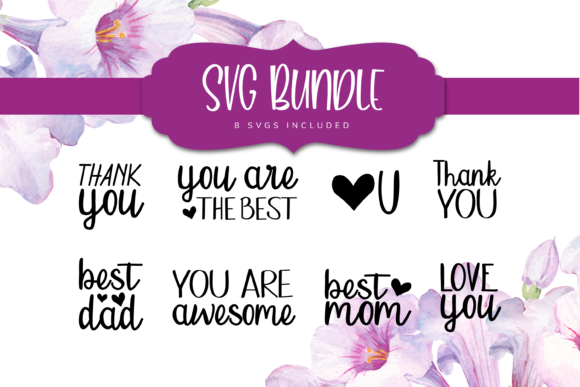
Hand Lettered Font Bundle
Finding the right design elements can be challenging, but Hand Lettered Font Bundle offers an exceptional collection that elevates your work instantly.
Whether you are creating POD (Print on Demand) products, wedding invitations, or social media graphics, Hand Lettered Font Bundle is an ideal fit.